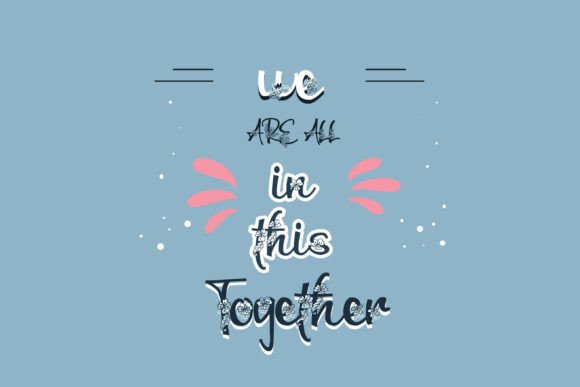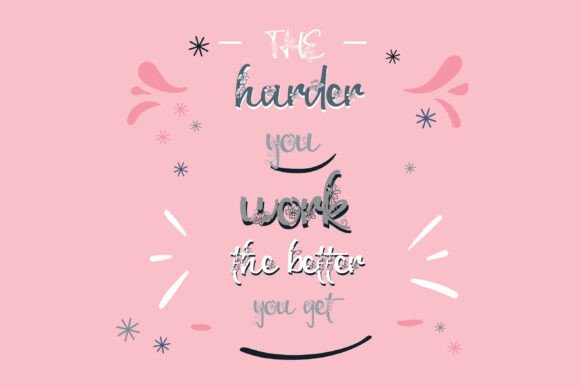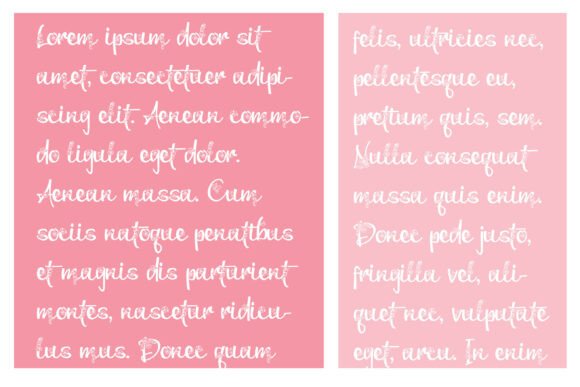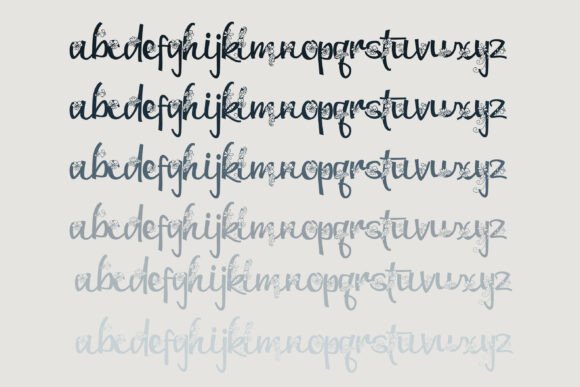
Bleautiful Bloom: The Elegant Hand-Written Script Font
In the world of typography, few fonts capture the essence of romance and elegance as beautifully as Bleautiful Bloom. This exquisite hand-written script font is designed to redefine romantic penmanship, offering a sophisticated and intimate feel that’s perfect for a variety of creative projects. With its fluid, lyrical flow and delicate white-line floral flourishes, Bleautiful Bloom is the ultimate choice for designers and crafters seeking to add a touch of timeless beauty to their work.
The Unique Characteristics of Bleautiful Bloom
Bleautiful Bloom’s unique charm lies in its elegant, hand-written script style, which features a fluid and lyrical flow that’s reminiscent of traditional calligraphy. The font’s delicate white-line floral flourishes are carefully crafted to “climb” the ascenders and descenders, adding a touch of whimsy and romance to each letter. This beautiful design element creates a sense of movement and energy, making Bleautiful Bloom perfect for layouts that require a sense of dynamism and elegance.
The Benefits of Using Bleautiful Bloom
Bleautiful Bloom offers a range of benefits for designers and crafters, including:
- Elegance and Sophistication: Bleautiful Bloom’s elegant design and sophisticated feel make it perfect for high-end branding, wedding stationery, and luxury cosmetic packaging.
- Romantic and Intimate: The font’s romantic and intimate feel makes it ideal for creating personalized digital signatures, wedding invitations, and other special occasion materials.
- Timeless Beauty: Bleautiful Bloom’s classic design ensures that it will remain a timeless and stylish choice for years to come, making it a valuable addition to any designer’s font library.
- Versatility: The font’s versatility makes it suitable for a wide range of creative projects, from elegant event headers to luxury branding and packaging.
Best Use Cases for Bleautiful Bloom
Bleautiful Bloom is a versatile font that can be used in a variety of creative projects, including:
- Wedding Stationery: Bleautiful Bloom is perfect for creating beautiful wedding invitations, save-the-date cards, and other stationery materials that require a touch of elegance and romance.
- Luxury Cosmetic Branding: The font’s sophisticated and elegant design makes it ideal for luxury cosmetic branding, packaging, and advertising materials.
- Elegant Event Headers: Bleautiful Bloom can be used to create stunning event headers for weddings, galas, and other high-end events.
- Personalized Digital Signatures: The font’s romantic and intimate feel makes it perfect for creating personalized digital signatures that add a touch of elegance to emails and documents.
Tips for Using Bleautiful Bloom Effectively
To get the most out of Bleautiful Bloom, follow these tips:
- Use it sparingly: Bleautiful Bloom is a elegant and sophisticated font, so use it sparingly to avoid overwhelming your design.
- Pair it with a simple font: Pair Bleautiful Bloom with a simple font to create a beautiful contrast that adds visual interest to your design.
- Experiment with colors: Bleautiful Bloom looks stunning in a range of colors, so experiment with different hues to find the perfect match for your design.
Bleautiful Bloom is a exquisite hand-written script font that’s perfect for designers and crafters seeking to add a touch of elegance and romance to their work. With its fluid, lyrical flow and delicate white-line floral flourishes, this beautiful font is sure to become a timeless classic. Whether you’re creating wedding stationery, luxury cosmetic branding, or elegant event headers, Bleautiful Bloom is the ultimate choice for anyone seeking to add a touch of sophistication and intimacy to their designs.